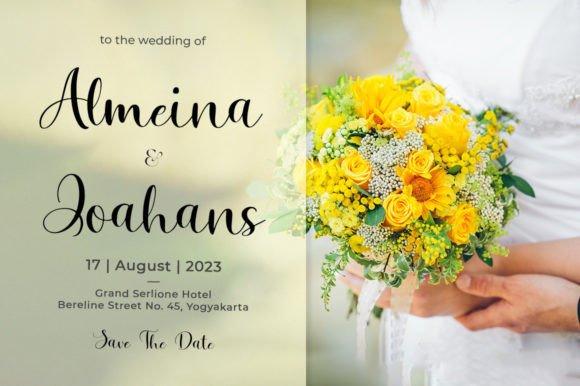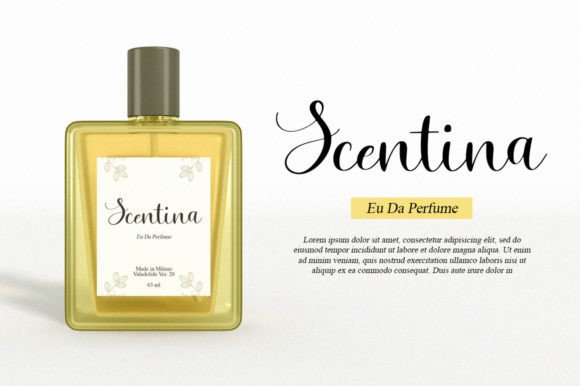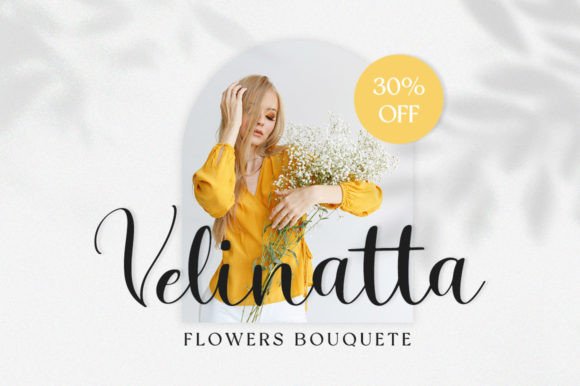
Introduction to Remillens Font
Remillens is a stylish and beautiful handwritten font perfect for logos.
branding, invitations, stationery, wedding designs, social media posts, advertisements, product packaging, product designs, labels, photography, watermarks, special events, or anything that needs handwritten taste .
Key Features of Remillens Font
Why Choose Remillens Font?
Remillens Font offers exceptional quality and versatility, making it a valuable addition to your design toolkit. Whether you’re creating for personal projects or commercial use, Remillens Font delivers professional results.